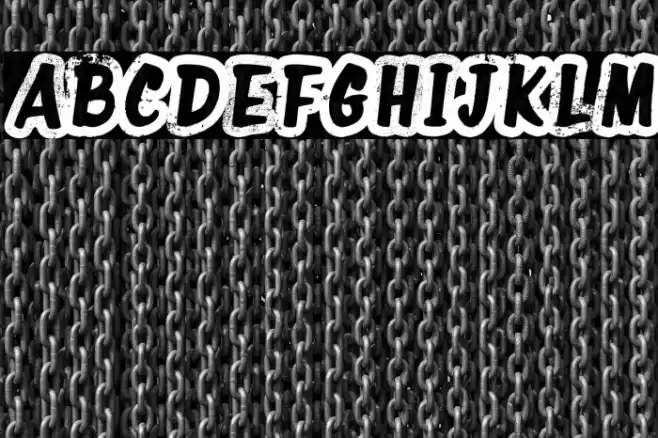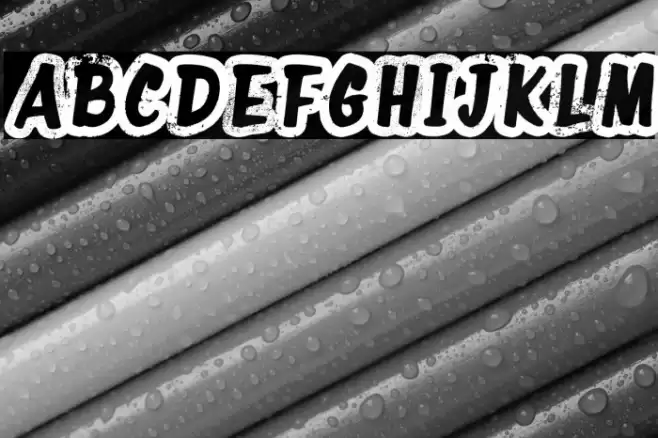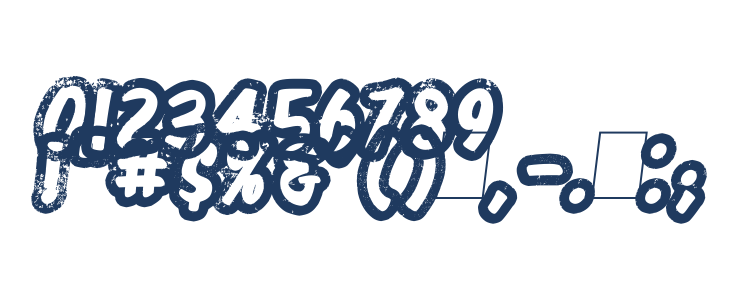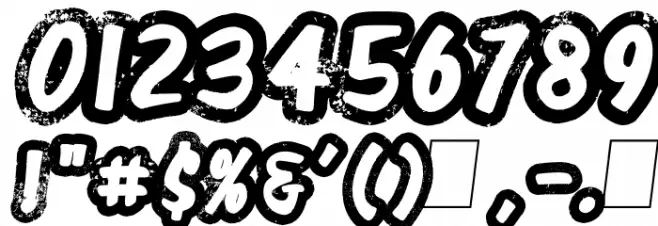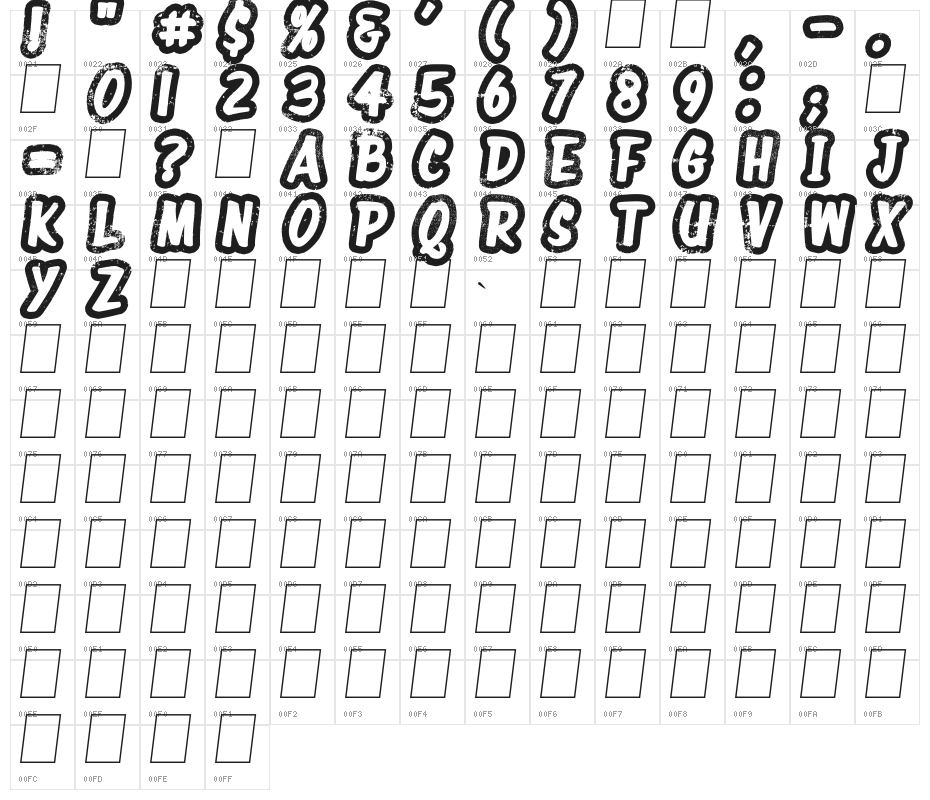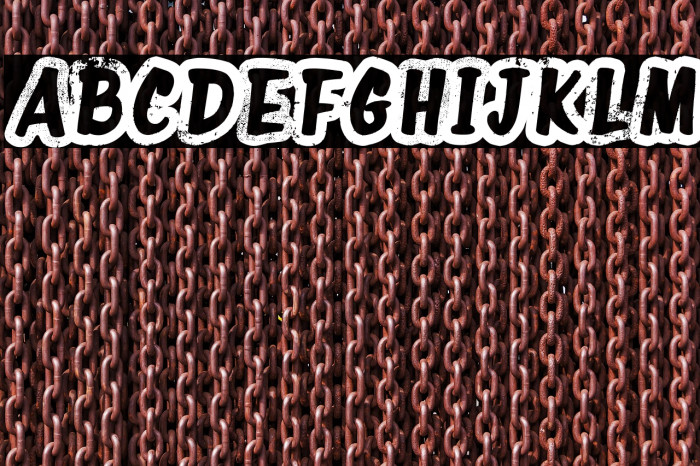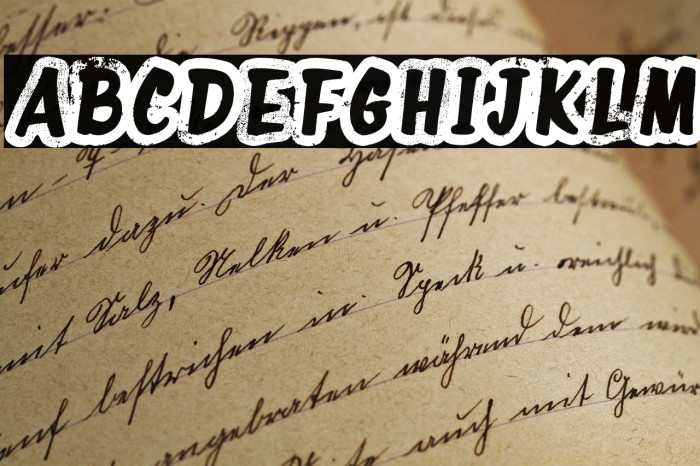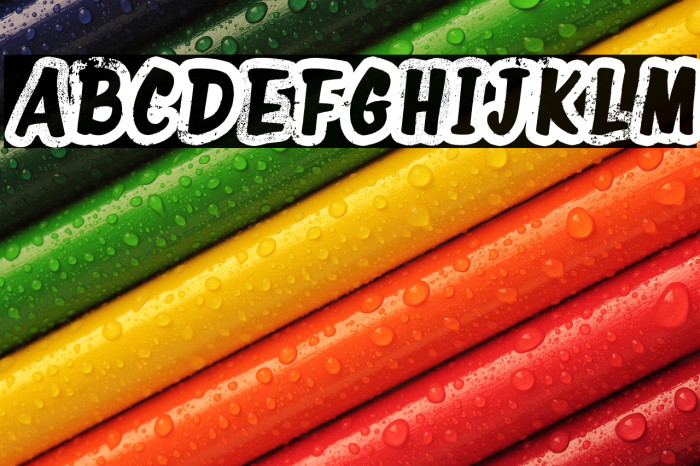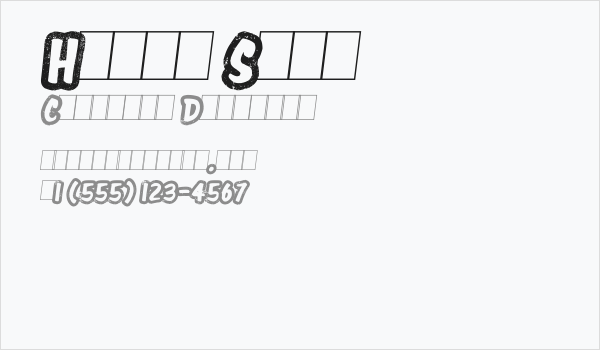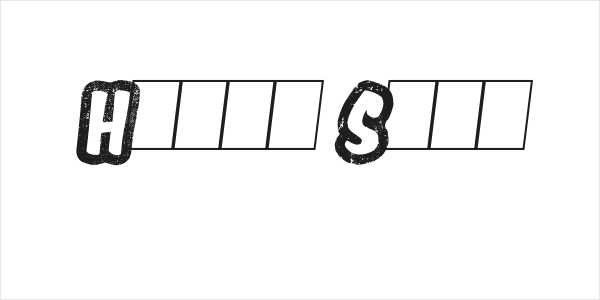
Happy Shop Font
Happy Shop Description
This font features a bold, playful style with a distressed texture that gives it a rugged, hand-painted appearance. The uppercase letters are rounded and slightly irregular, adding to the casual and fun aesthetic. The numbers and special characters maintain this distressed look, ensuring consistency across all characters. The font's boldness and unique texture make it stand out, making it ideal for eye-catching designs. Its playful nature is perfect for projects that require a touch of whimsy and creativity.
A bold, distressed, and playful font with a hand-painted look from Uncategorized fonts.
- Proposed Projects: Ideal for children's book covers, playful branding, posters, and creative social media graphics.